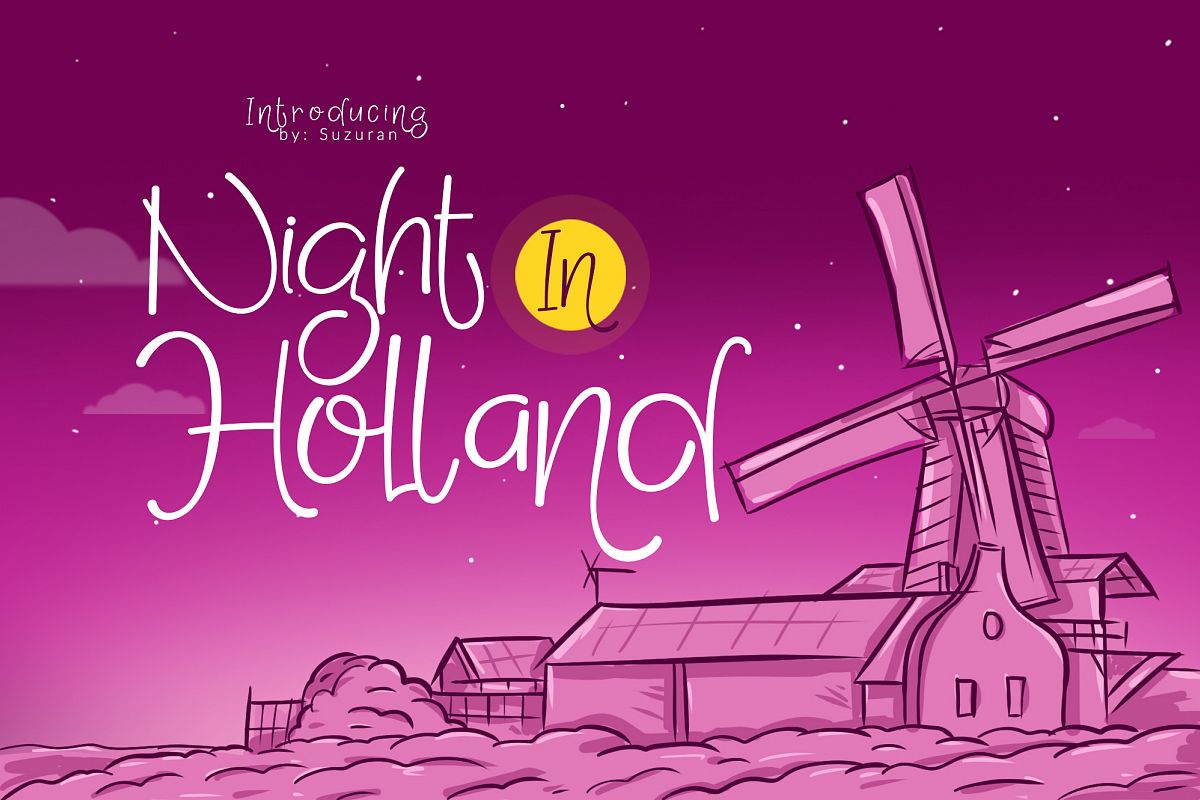
Night in Holland 2 font with cheerful theme for your fun project. Night in Holland Display font has 2 different styles, regular & slant. Night in Holland font suitable for logo, branding, greeting card, branding, poster and any design that you create.